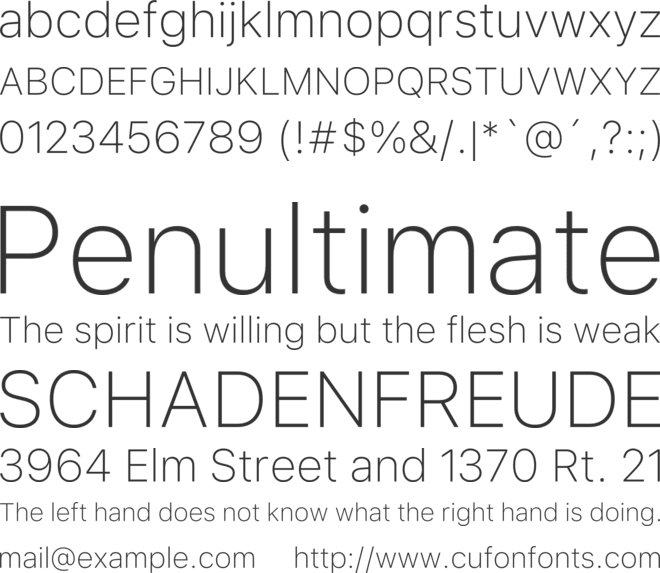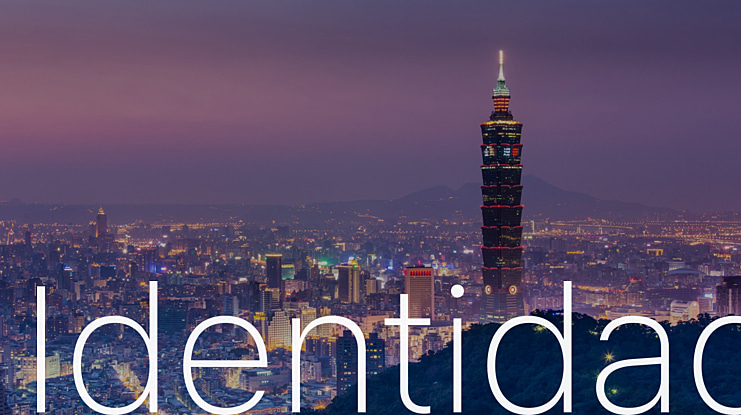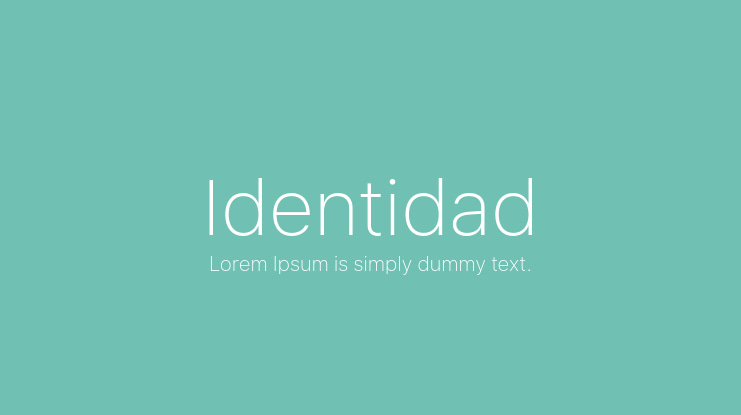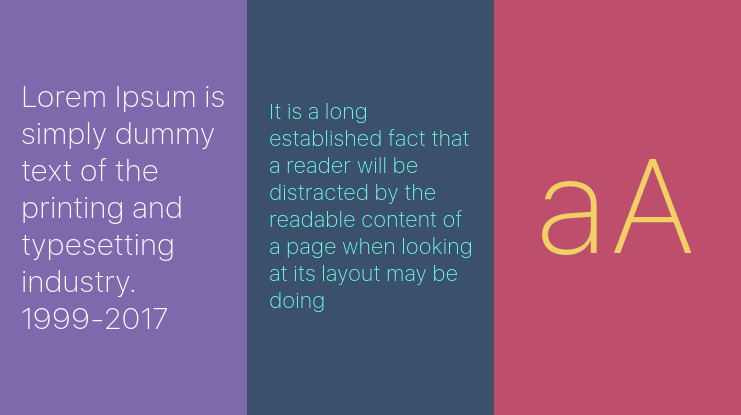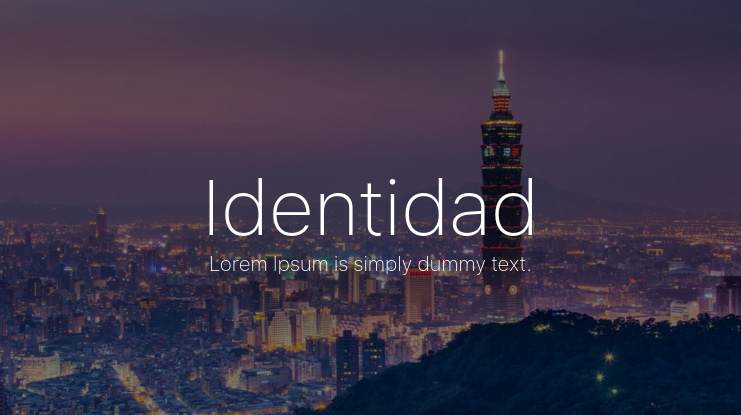
Identidad Font Family
Ruls Do Paolo
Identidad is a sans-serif typeface family that provides extensive language support for the Latin script.
Featuring nine weights, including corresponding italics, Identidad offers a total of 723 glyphs and boasts 22 OpenType features. These features include aalt, calt, case, ccmp, dlig, dnom, frac, liga, locl, numr, ordn, pnum, sinf, ss01, ss02, ss03, ss04, ss05, subs, sups, tnum, and zero.
With support for 377 languages, Identidad covers three Unicode blocks: Basic Latin, Latin-1 Supplement, and Latin Extended-A.